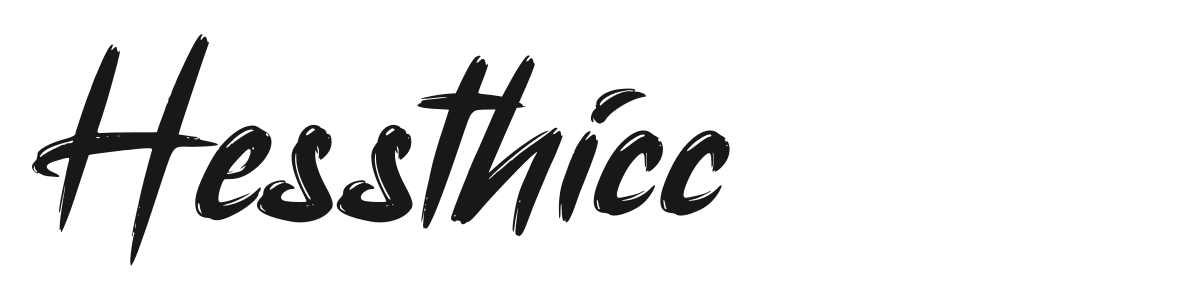
Hessthicc
by Abas Creative
Hessthicc is a bold brush script with heavy, ink-loaded strokes and a raw, spontaneous energy. The bristle texture and ragged stroke edges give it a genuine handmade quality that feels neither stiff nor overly polished. It works hard at large sizes in branding, posters, and apparel graphics.